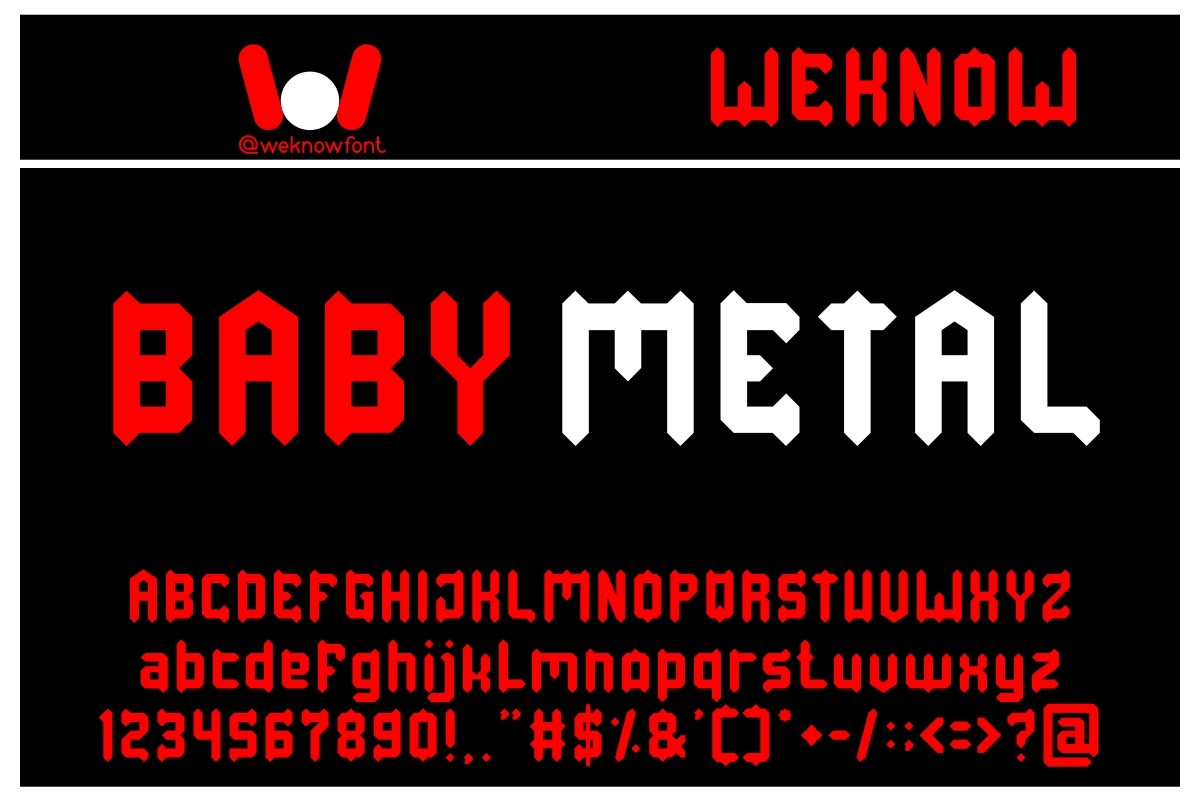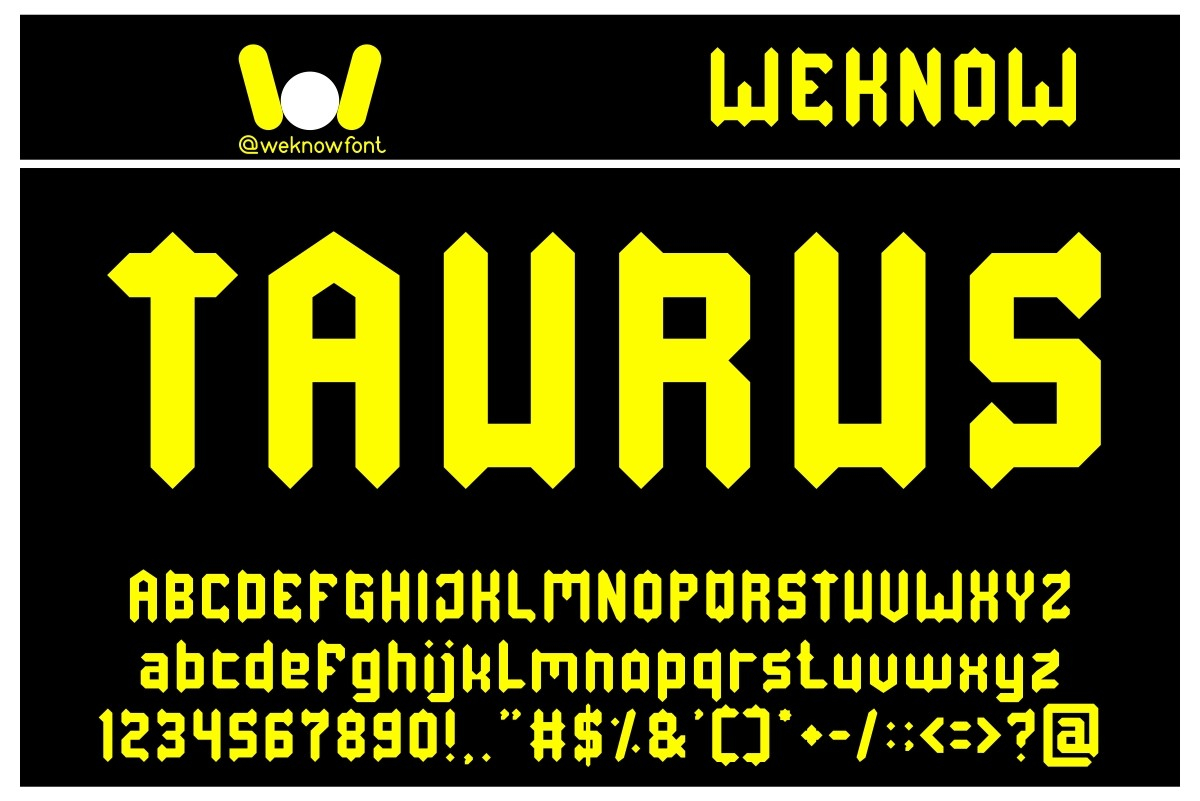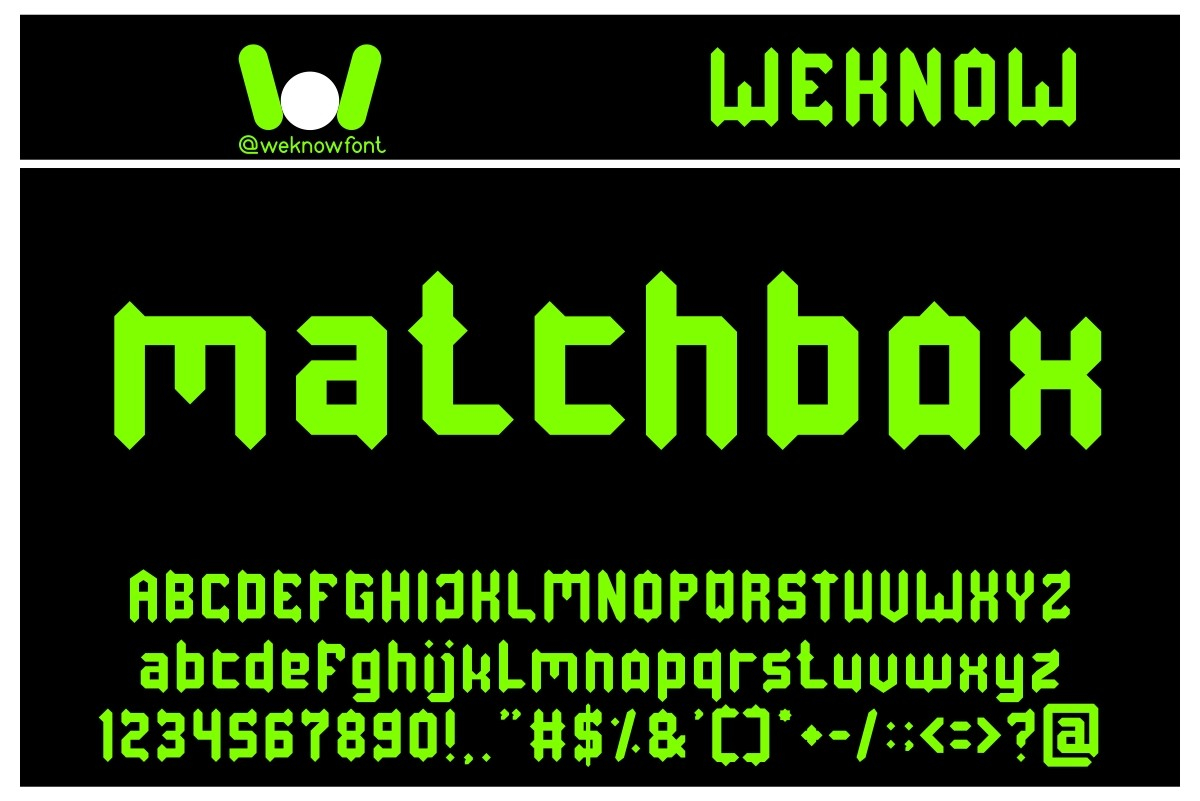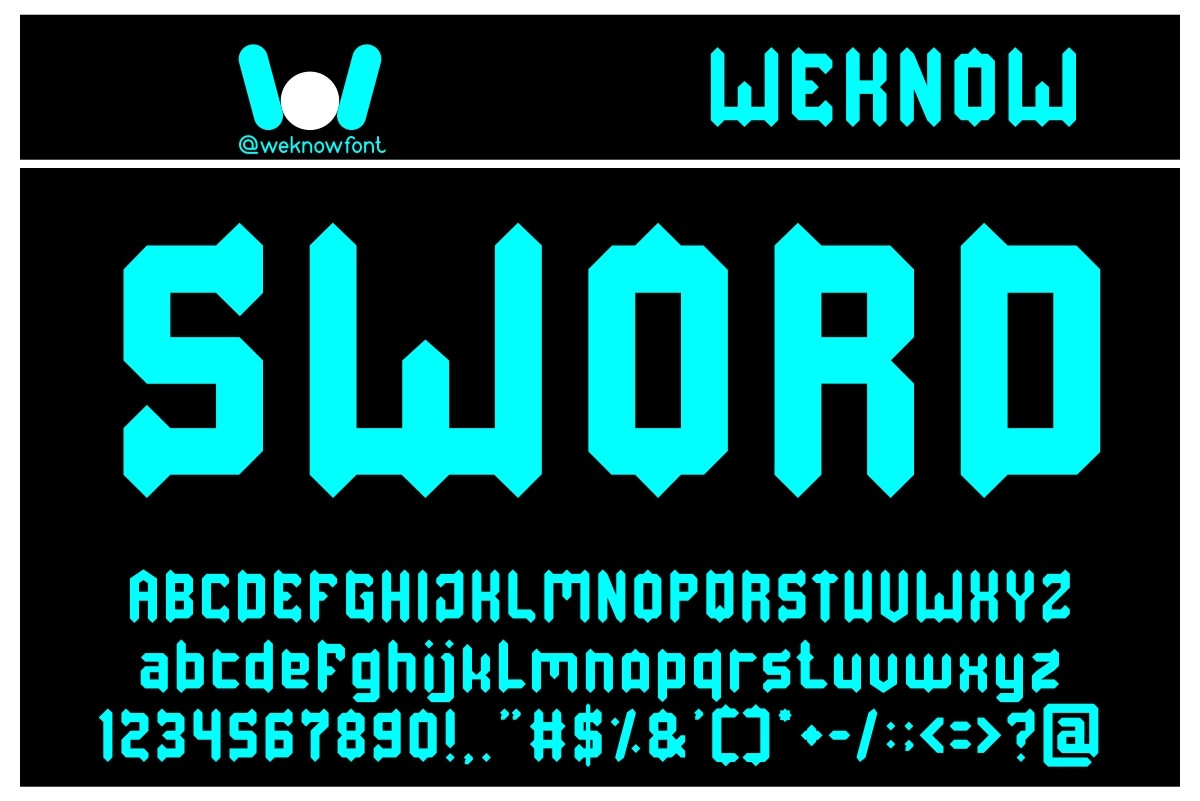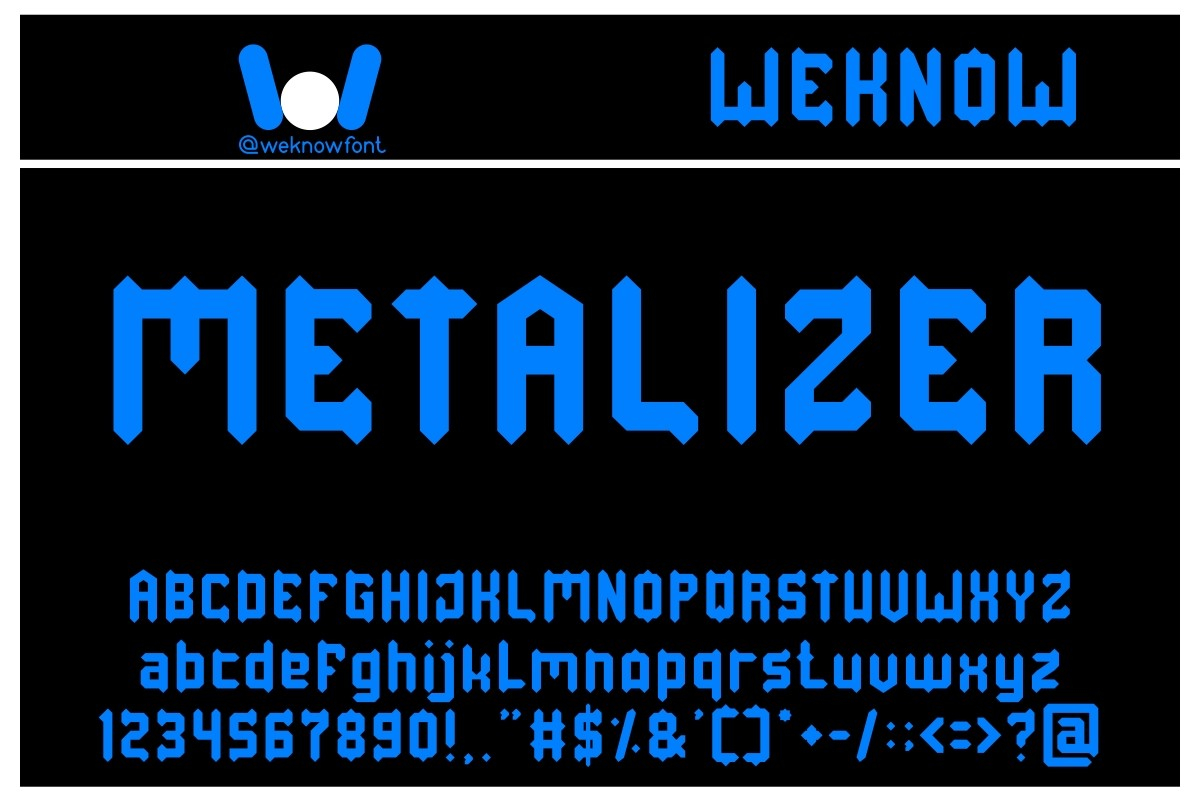
About Baby Metal Font
Baby Metal is a gothic and modern blackletter font suitable for logos, logotypes, headlines, corporate identity, brand identity, apparel industry, posters, music, movies, games, magazines, books, comics, cartoons, YouTube, Instagram, websites, or any of your creative design projects!